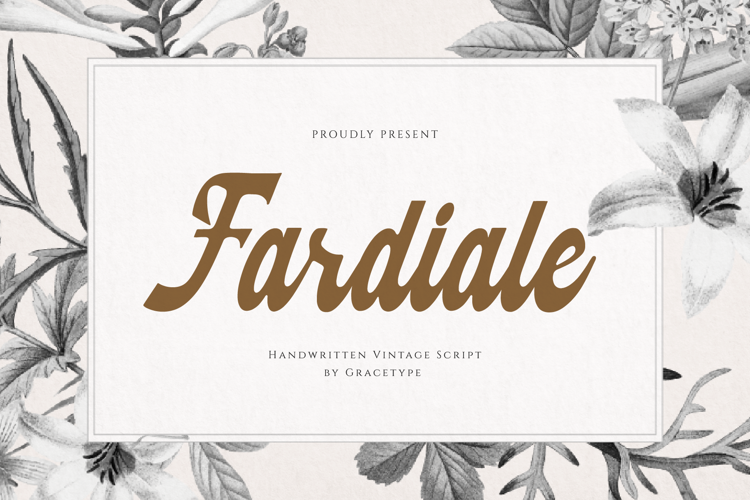
Fardiale Font
Fardiale | Vintage Script, is suitable for any projects such as: logos, branding projects, homeware designs, product packaging, mugs, quotes, posters, shopping bags, t-shirts, book covers, name card, invitation cards, greeting cards, label, photography, watermark, special events, and all your other lovely projects that need a Script f taste.